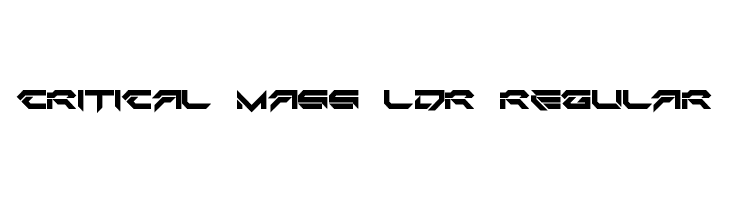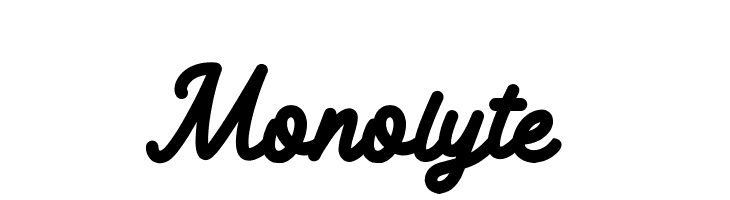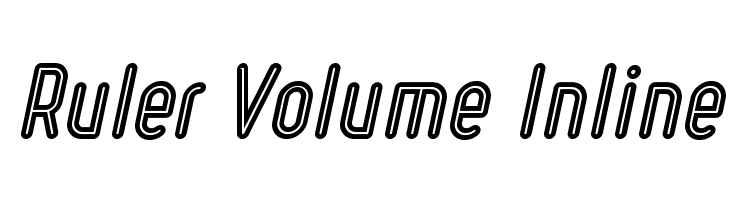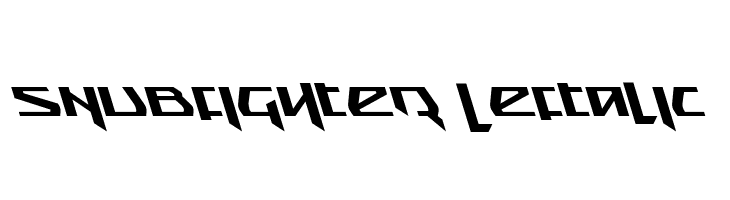
A bold, italic outline font with a dynamic and modern style.
A playful, cartoon-like font with geometric shapes and whimsical characters.
A bold, geometric font with angular shapes and solid forms.
A bold, geometric font with a futuristic and angular design.
A playful, bold handwritten font with rounded edges and a casual style.
A bold, playful font with rounded edges and a retro vibe.
A lively, cursive font with fluid, connected letters and varying stroke thickness.